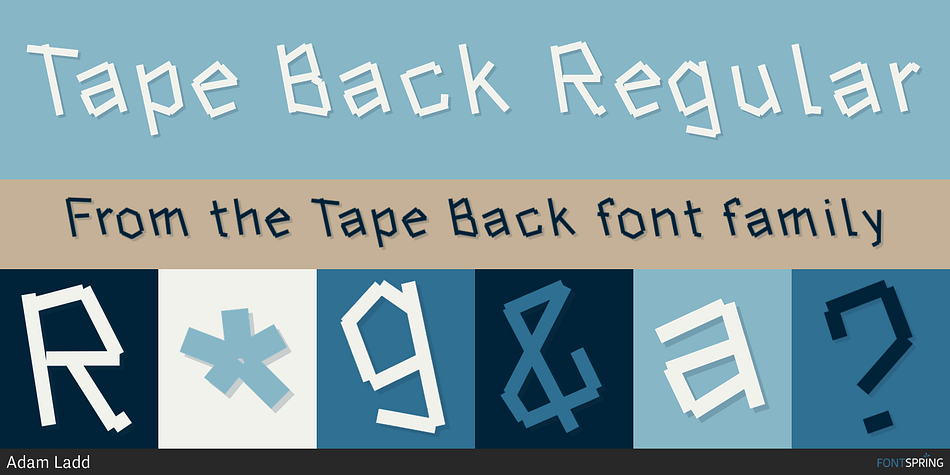
Tape Back Regular
Tape Back is a display font family. This typeface has three styles and was published by Adam Ladd.
The Tape Back family comes in three weights.
The Tape Back family comes in three weights. Each are monoline in weight and have a modern yet slightly quirky appearance. It is informal but has some stability with its linear forms. The slant backwards makes it unique, and it displays well even for body text.